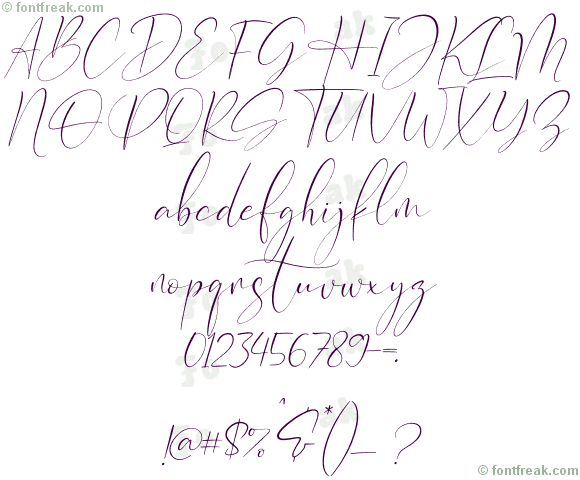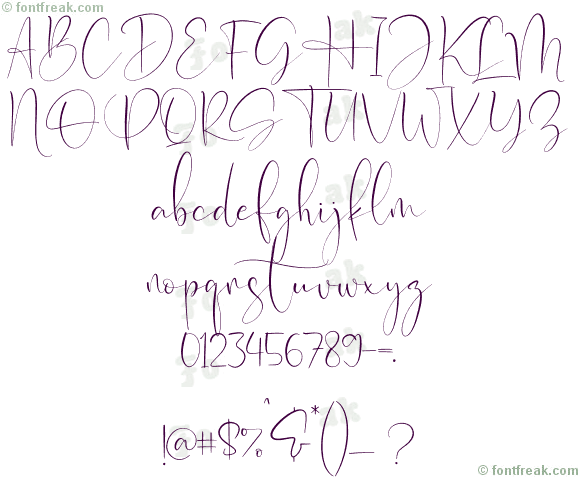
Optimistica Dreams Italic
Optimistica Dreams
About Optimistica Dreams Italic
Introducing the Optimistica Dreams Italic font by Perspectype Studio, a stunning script typeface that beautifully balances elegance and modernity. Released in 2021 as freeware, this font is perfect for a variety of creative projects, making it an essential addition to any designer's toolkit. The Optimistica Dreams Italic font features graceful, sweeping strokes that create an airy and inviting feel. Its moderate stroke weight and balanced contrast lend a sophisticated touch, while the open spacing allows for easy readability, ensuring that your message is conveyed with clarity and style.
This font is particularly well-suited for a range of use cases. It shines in wedding invitations, where its romantic flair can set the perfect tone for the big day. Similarly, it adds a touch of elegance to movie posters, enhancing the visual storytelling of the film. For restaurant menus, the Optimistica Dreams Italic brings a warm and welcoming vibe that can entice diners. Additionally, it works beautifully for branding projects, helping small business owners create memorable and visually appealing logos that resonate with their audience.
The target audience for this font includes graphic designers, small business owners, and content creators who are looking to elevate their visual communications. Whether you’re designing for print or digital mediums, the Optimistica Dreams Italic font free download will provide you with the flexibility and charm needed to captivate your audience.
What sets this font apart is its unique ability to convey emotion while maintaining a professional appearance. The delicate curves and inviting lines of Optimistica Dreams Italic make it a standout choice for those who wish to infuse their projects with both creativity and elegance. It’s a font that not only enhances design but also tells a story.